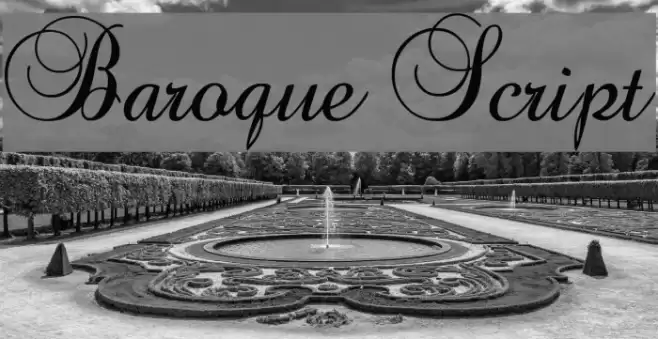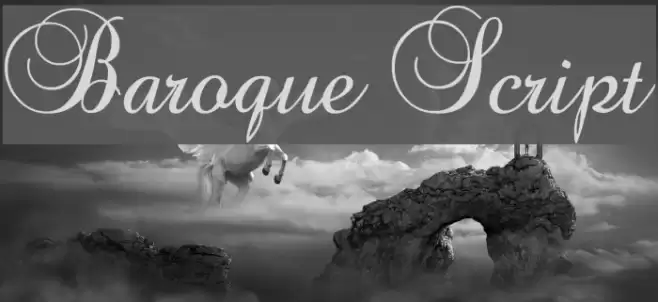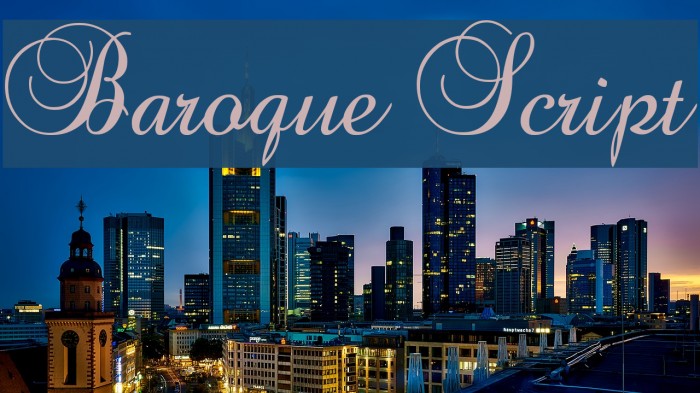
Baroque Script Font
Baroque Script Description
This elegant script font features intricate, flowing letterforms with elaborate swashes and flourishes, reminiscent of the ornate handwriting styles of the Baroque period. The uppercase letters are particularly decorative, with loops and curls that add a sense of grandeur and sophistication. The lowercase letters maintain a more restrained elegance, allowing for readability while still conveying a sense of luxury. The numerals and special characters are designed to complement the overall aesthetic, with a consistent style that ties the entire typeface together.
An ornate script font with elaborate swashes and Baroque-inspired elegance from Script fonts.
- Proposed Projects: Ideal for wedding invitations, luxury branding, certificates, and decorative headings.
- Overall Style: Vintage
- Use Case: Logos, Invitations, Decorative headings